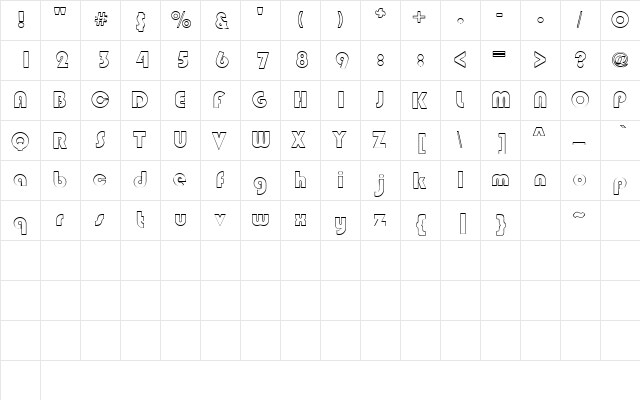
MumboOutlineSSK Regular
Design Context for MumboOutlineSSK Typeface
MumboOutlineSSK is built around its visual character rather than neutral utility — its distinctive forms are designed to make an impression at display sizes.
Font Pairing: Pair with a clean neutral sans-serif for body copy to let MumboOutlineSSK's character lead without overwhelming the composition.
Pro Tip: Treat MumboOutlineSSK as the centrepiece of your typographic hierarchy. One strong heading set in a decorative face can carry an entire layout.